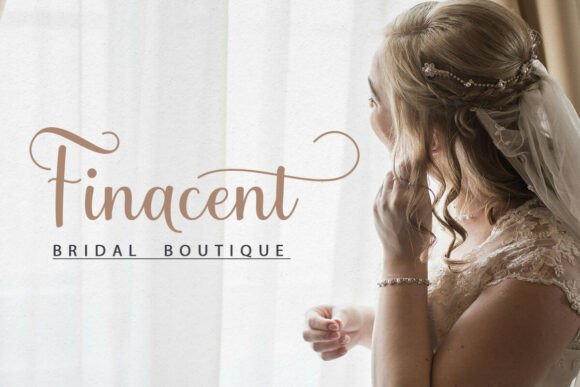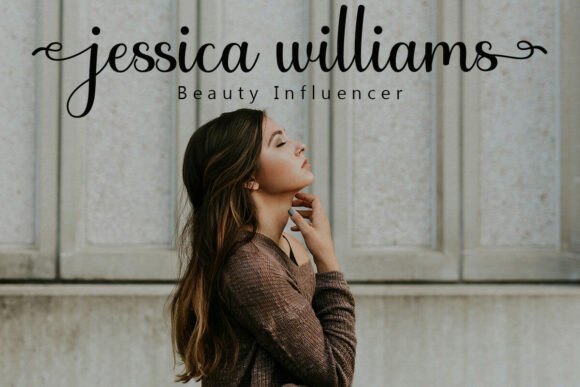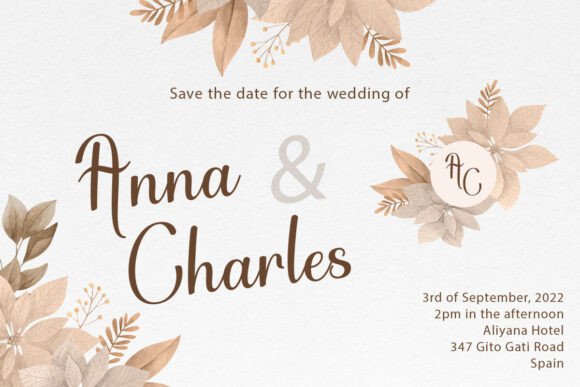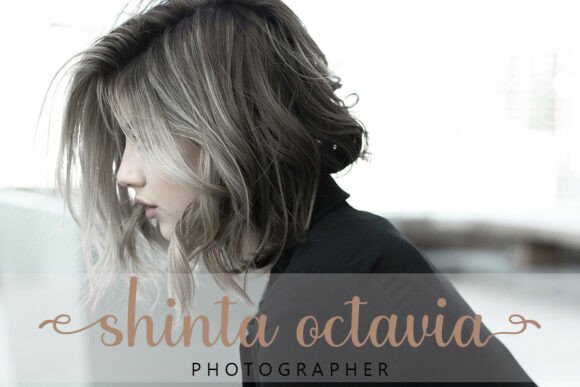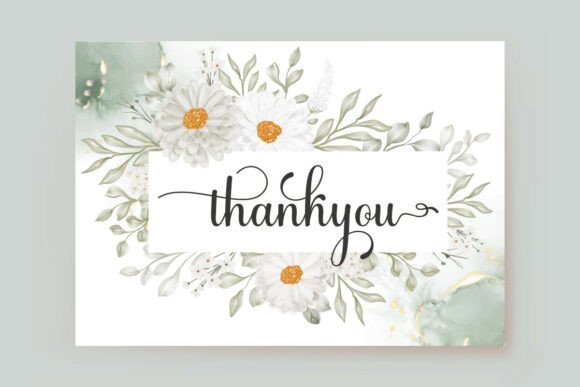
Introduction to Greenland Script Font Font
Fonts play a crucial role in design, and the Greenland Script Font font is a typeface that brings both character and versatility to any project. Whether you’re working on a branding project, a website, or a print design, the Greenland Script Font font offers a unique style that can elevate your work.
Greenland script is a smooth, elegant and flowing handwritten font.
It has a beautiful and balanced character and as a result, fits into a wide set of designs Greenland script features varied baselines, smooth lines, beautiful glyphs, and stunning alternatives.
Key Features of Greenland Script Font Font
Why Choose Greenland Script Font Font?
The Greenland Script Font font is more than just a typeface – it’s a design tool that helps you communicate your message with style and clarity. Its unique character set and versatile design make it suitable for a wide range of applications, from elegant invitations to bold headlines.
With its carefully crafted letterforms and balanced proportions, the Greenland Script Font font ensures readability and visual appeal across all mediums.
What makes Greenland Script Font font special?
The Greenland Script Font font stands out with its unique design, exceptional readability, and versatility across various design applications.